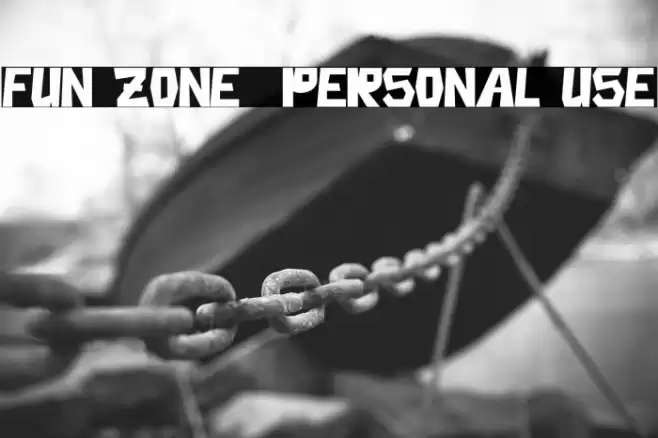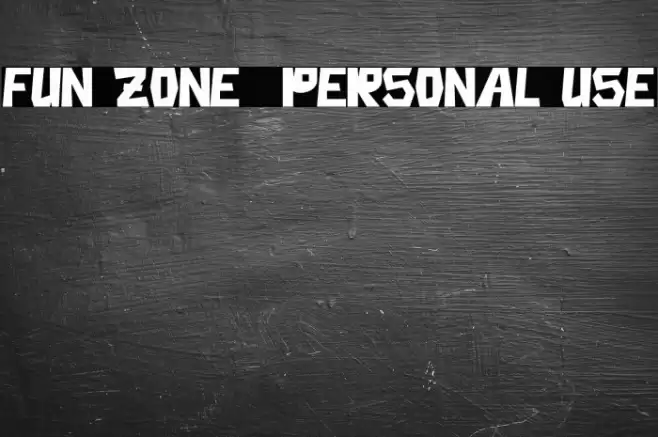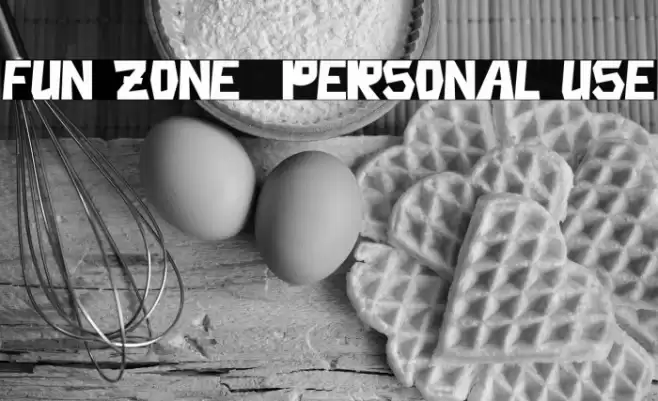
Fun Zone - Personal Use Font
Fun Zone - Personal Use Description
This font features a bold and dynamic style with a playful and energetic appearance. The characters are designed with sharp angles and a slightly irregular form, giving them a unique and eye-catching look. The uppercase and lowercase letters maintain a consistent design, while the numbers and special characters follow the same bold and angular theme. This font is ideal for projects that require a fun and lively aesthetic, making it perfect for creative and informal applications.
A bold, angular font with a playful and energetic style from Cartoon fonts.
- Proposed Projects: Ideal for posters, event flyers, children's book covers, and any project needing a fun, dynamic look.